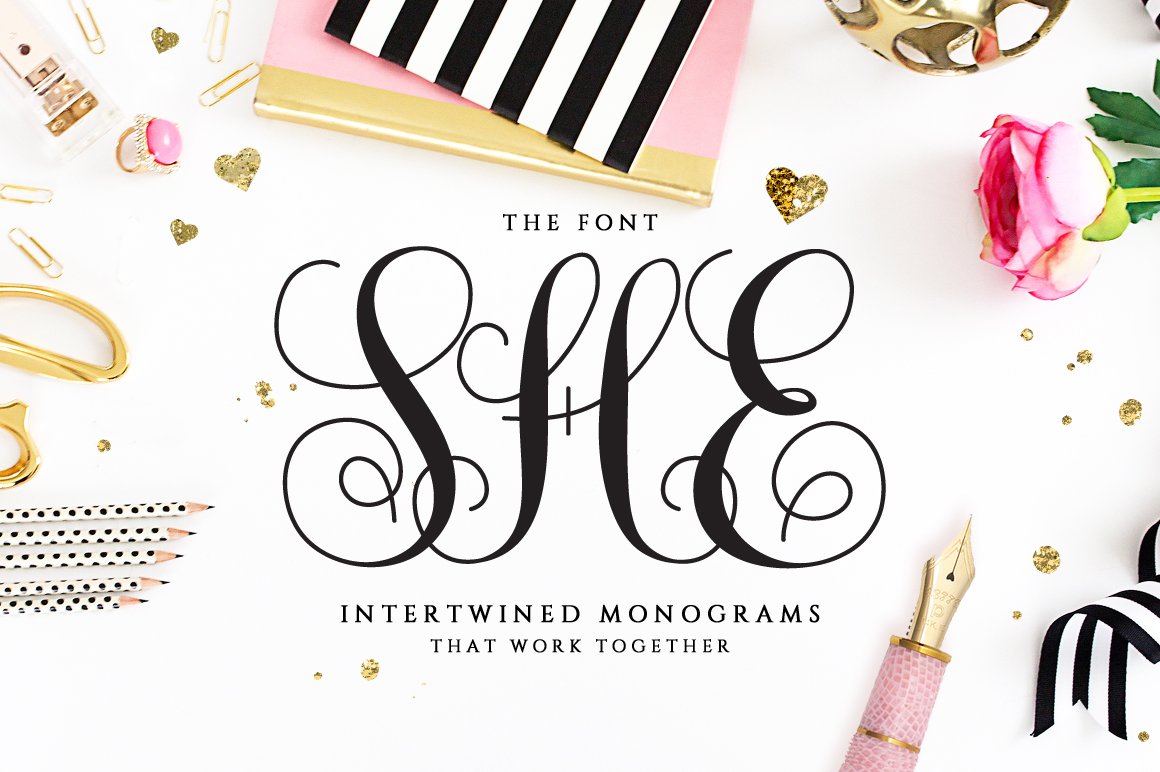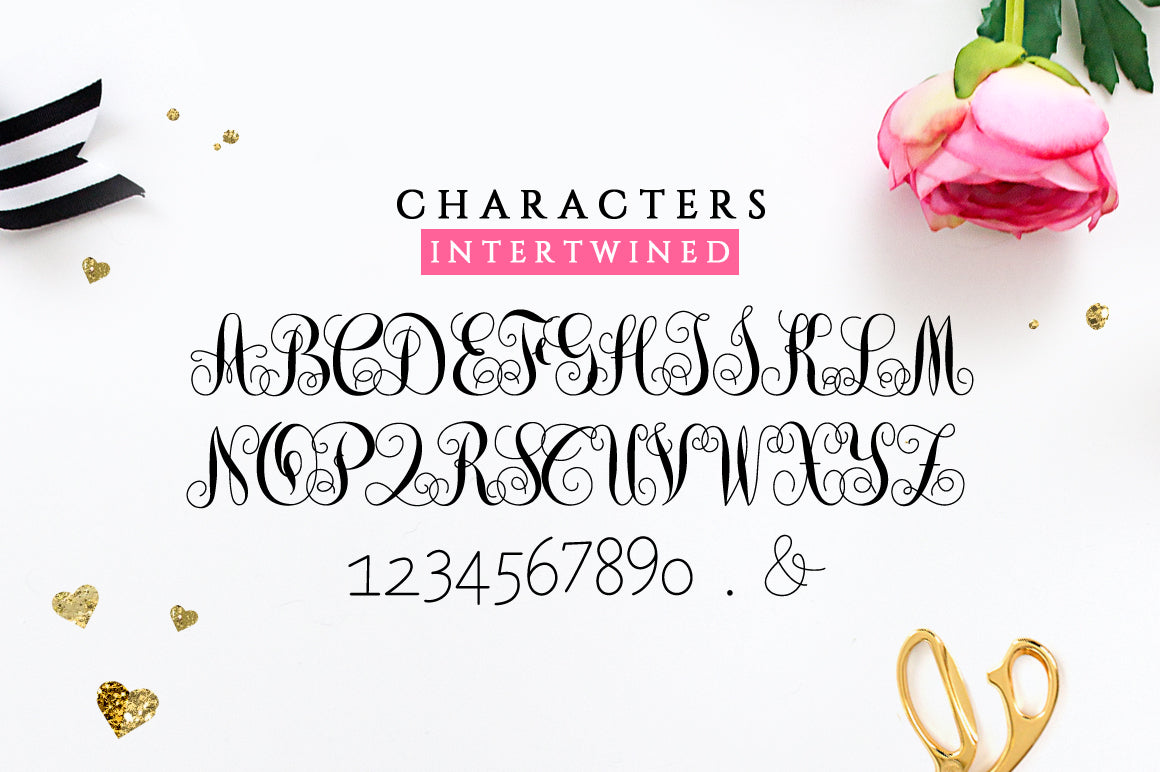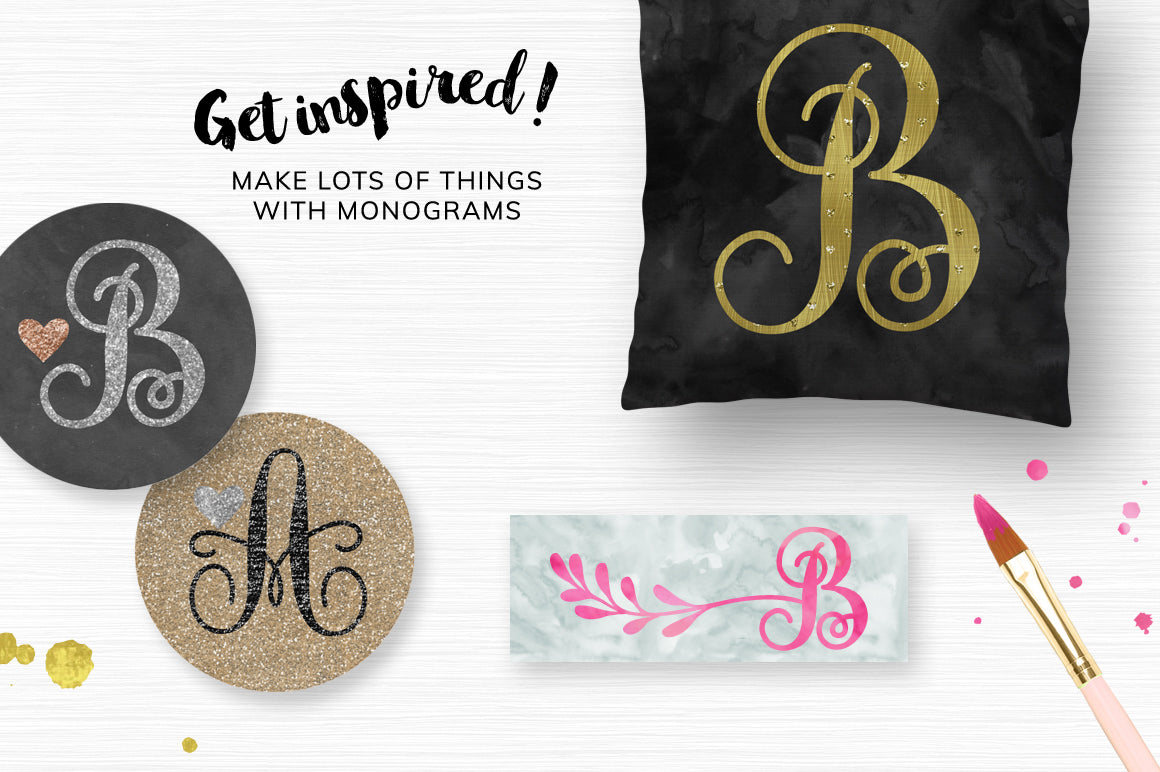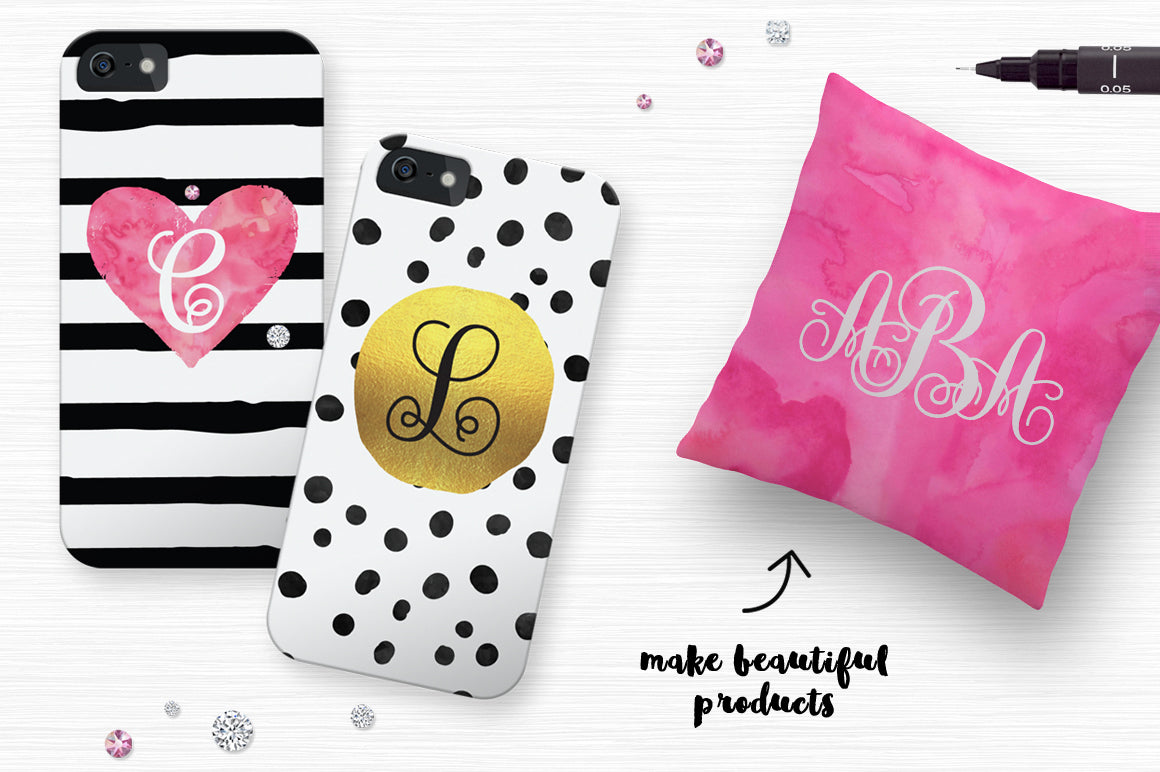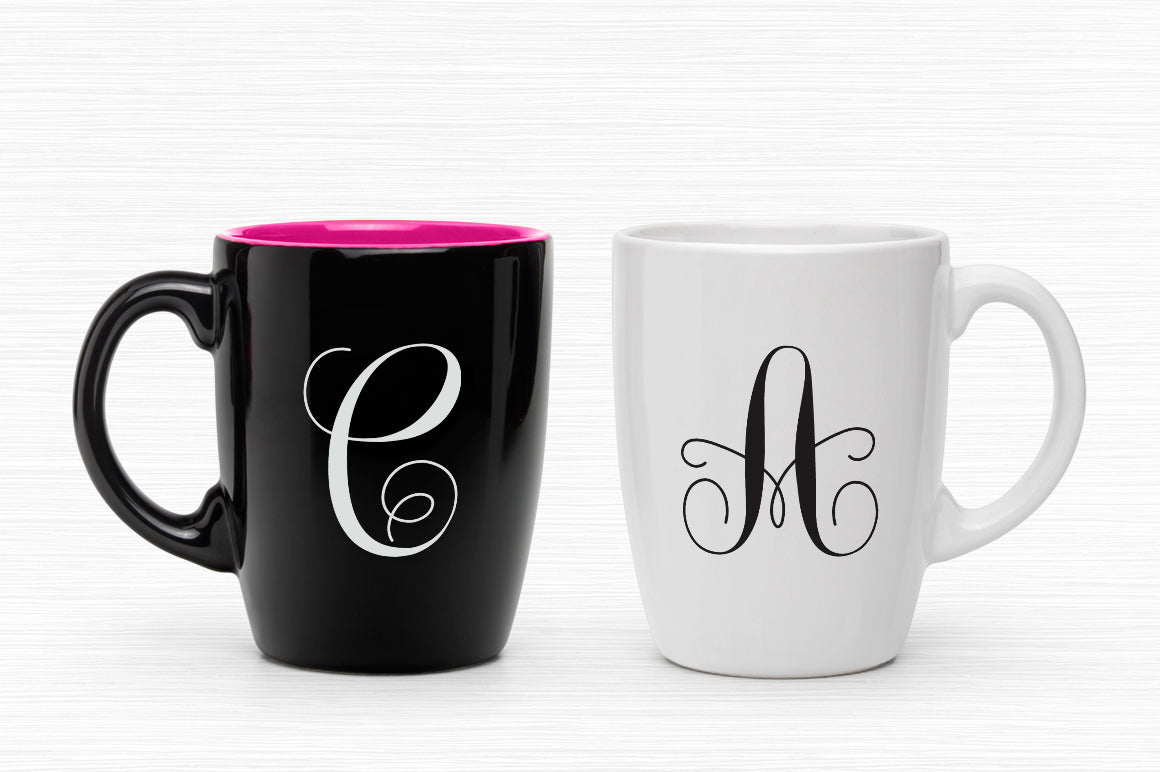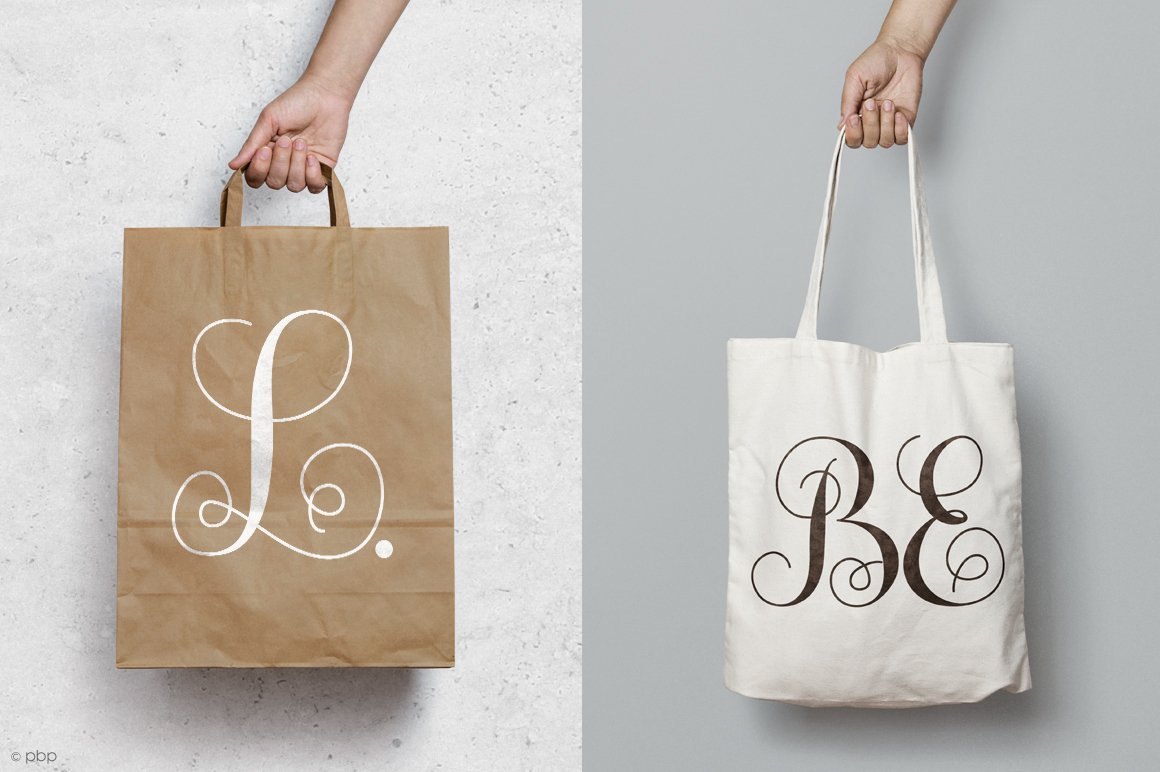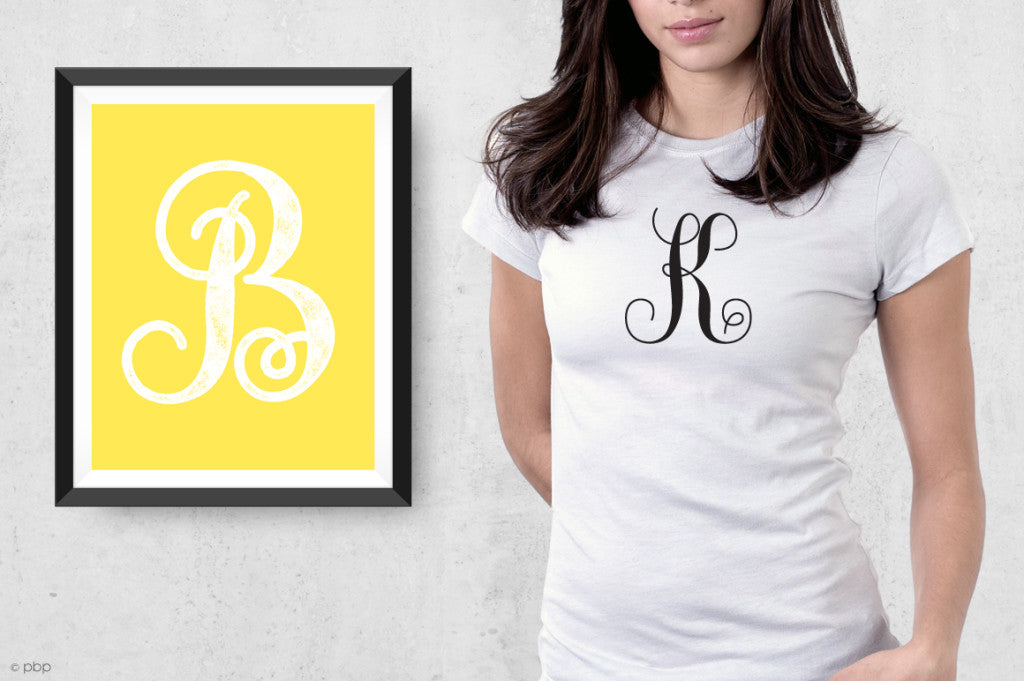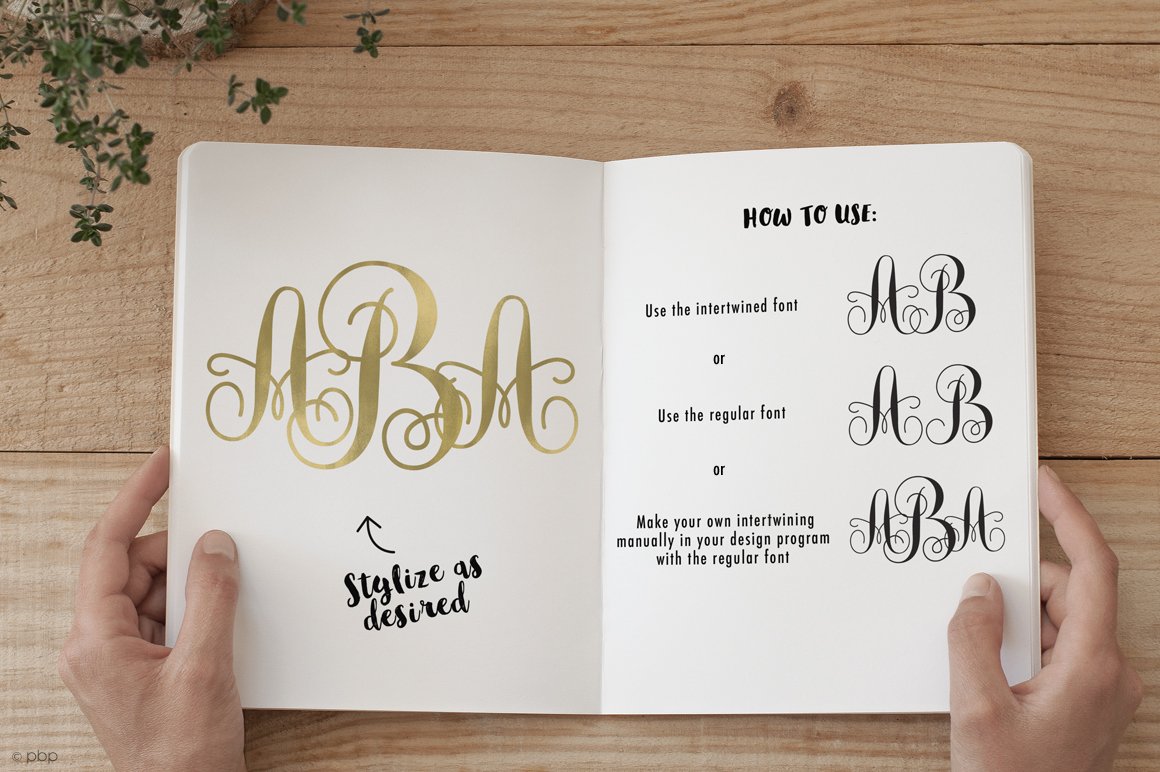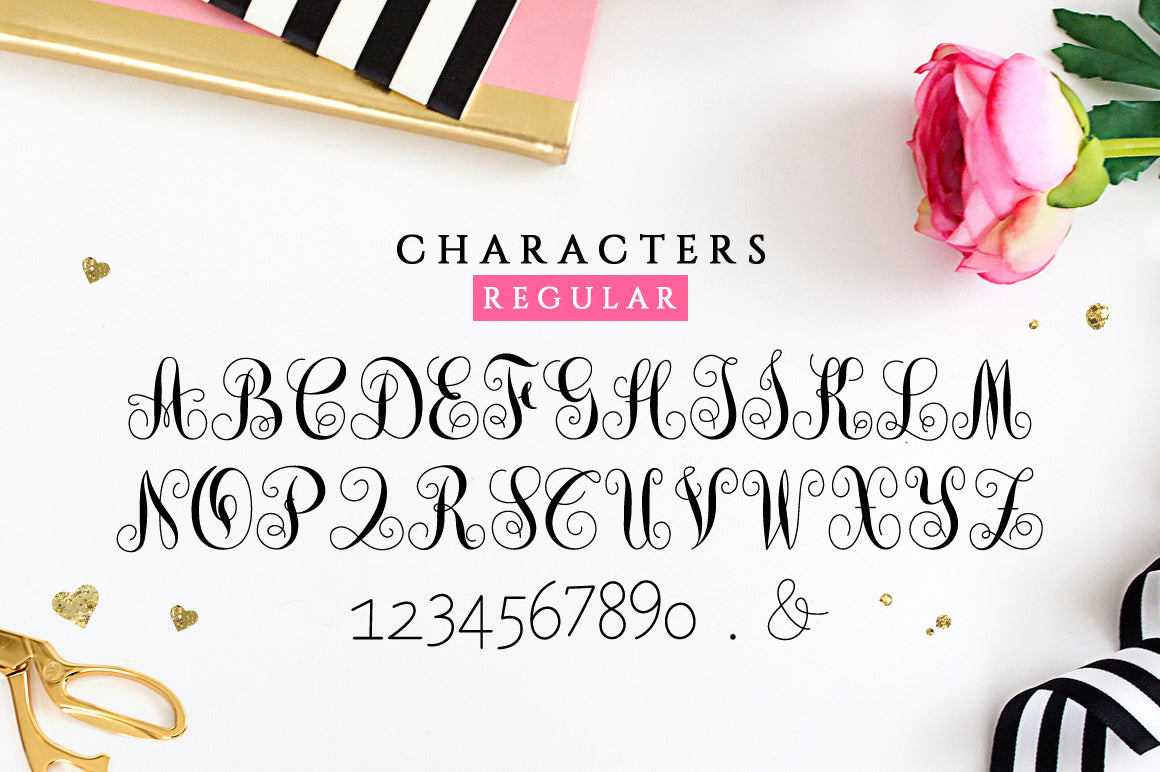
Interlocking Monogram Font
Monogram She is a beautiful intertwined monogram font. Each letter has being hand drawn with the purpose of making them join each other. This interwoven font looks great in personalized products like cards, mugs, shirts, cell phone cases, stationery. Needless to say, is PERFECT for weddings! Make invitations, favours, napkins, decorations or any project with initials.
- Monogram She Regular
- Monogram She Intertwined
- Uppercase characters, numbers, period and ampersand.